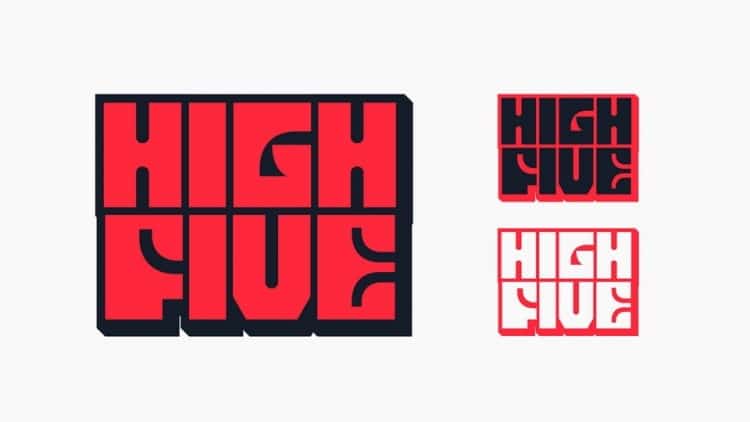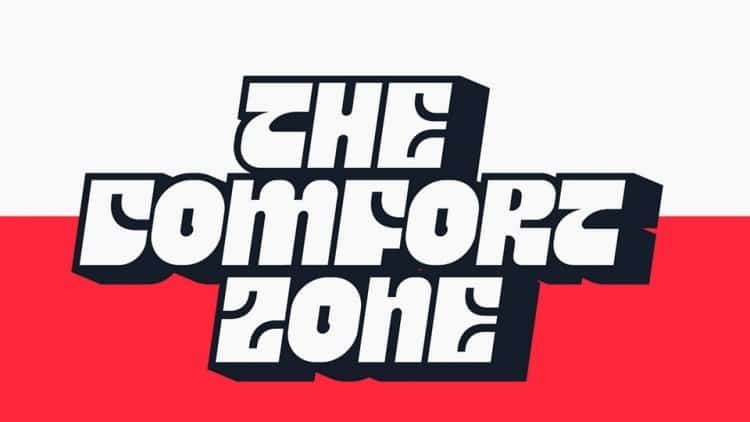
Future Bold Display Font, designed by Dishant Mehlawat is an extremely heavy weight display font with many unique characters. Perfect for big titles, advertising, labelling, packaging and anything that needs a big impactful typeface.
Future Bold was created as an experiment, and was inspired by the logo of the famous website futuefonts.